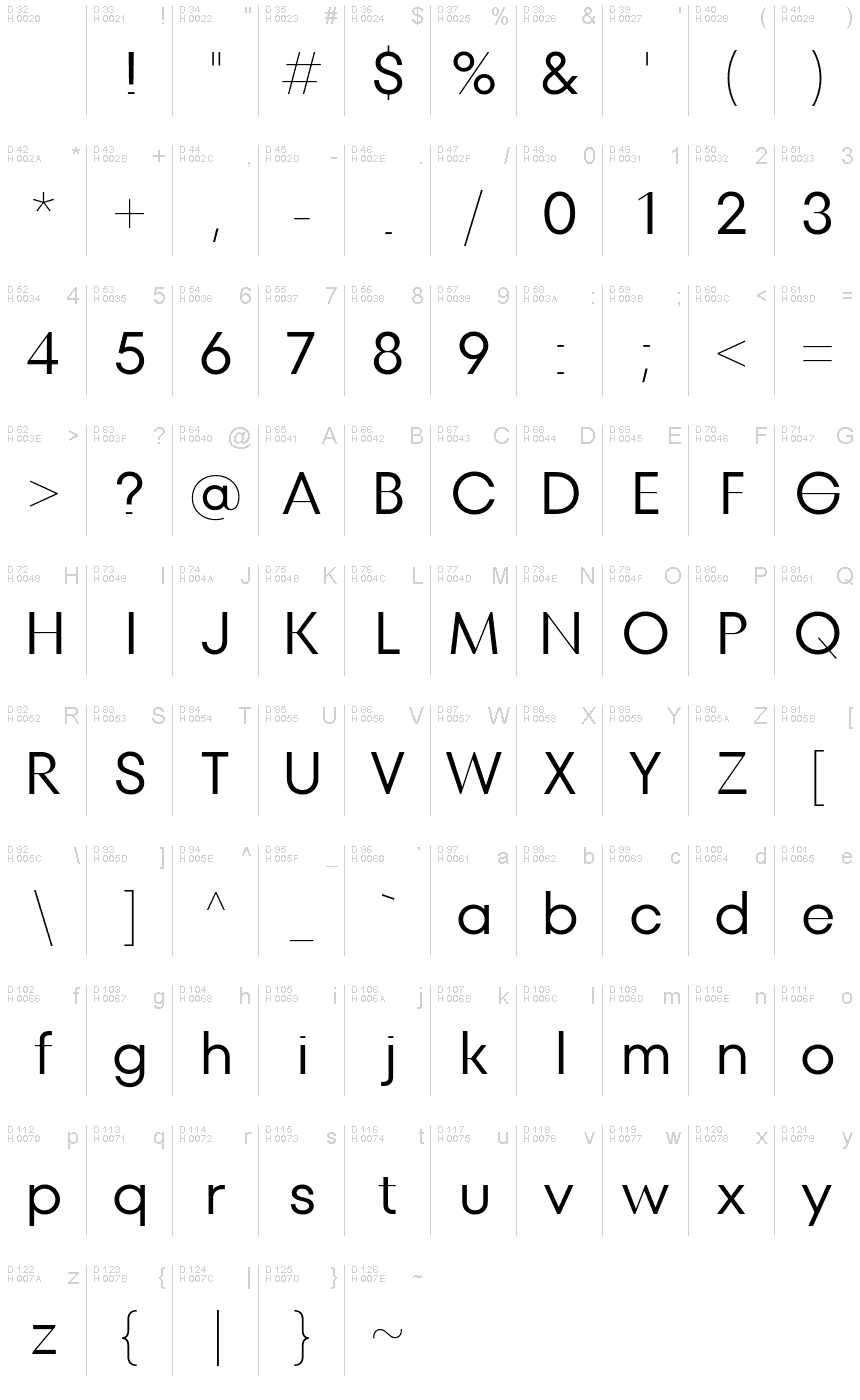
TT Fors Display Trial Variable
TT Fors Display Variable is a modern sans serif font designed by TypeType Foundry that features a semi-light weight. Its sleek and legible letterforms make it perfect for display use in editorial projects, branding, advertising, and more. With its variable width capabilities, this font allows for creativity and flexibility when designing logos or headlines. The thin strokes give it an elegant and sophisticated feel while still maintaining readability. Whether you're designing a website or creating a print ad campaign, TT Fors Display Variable is the perfect choice for any project that requires a clean and contemporary look.